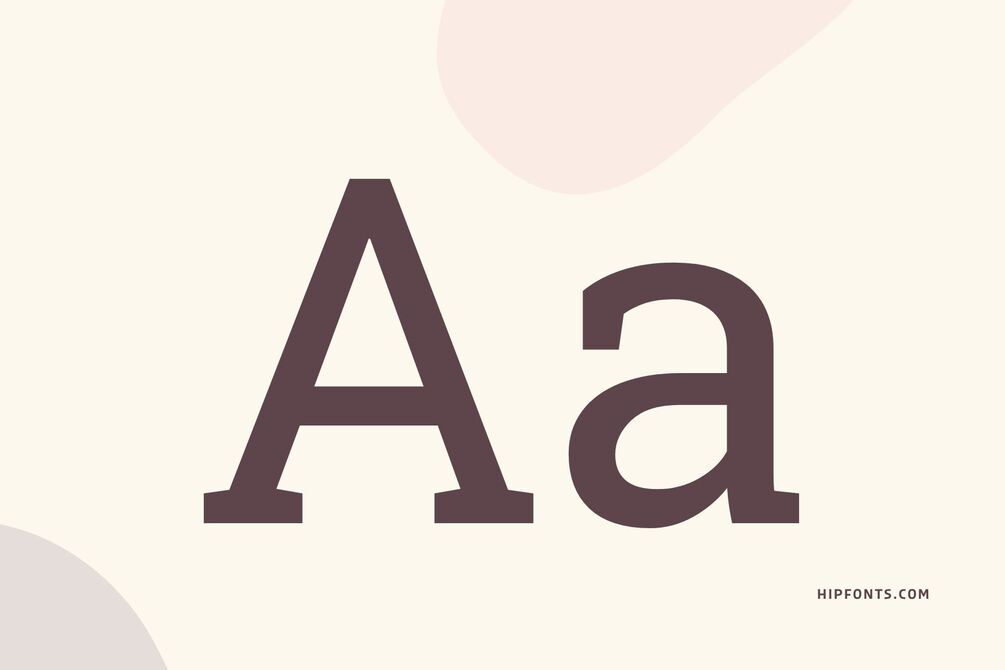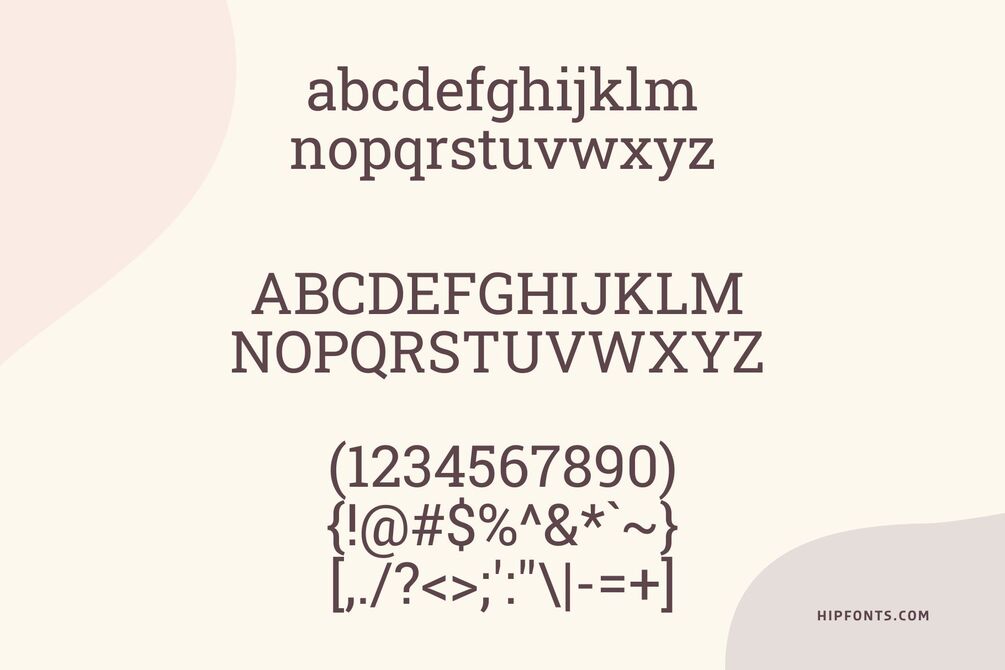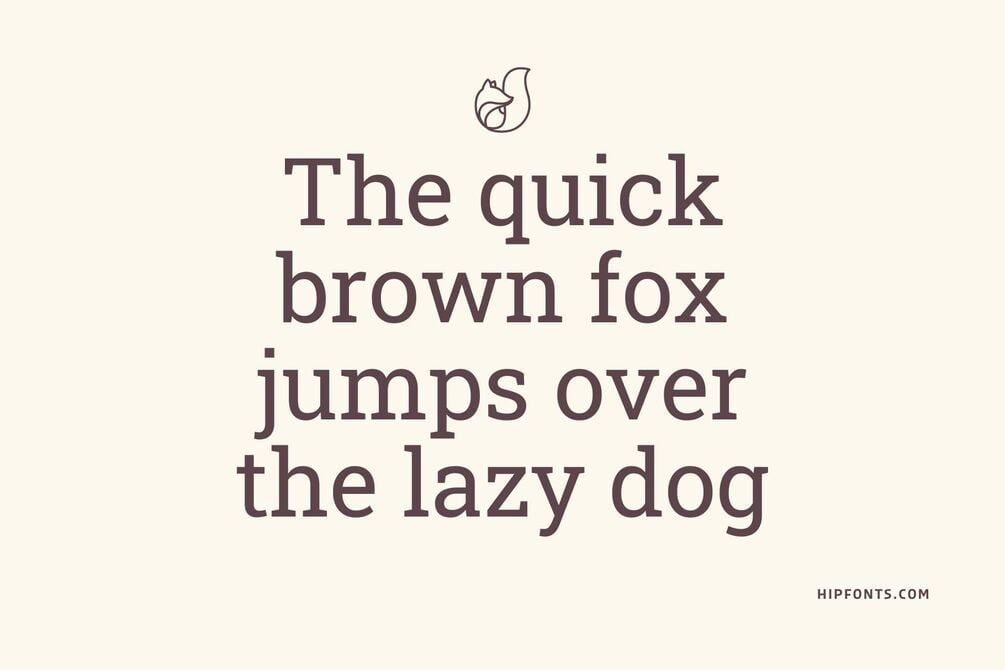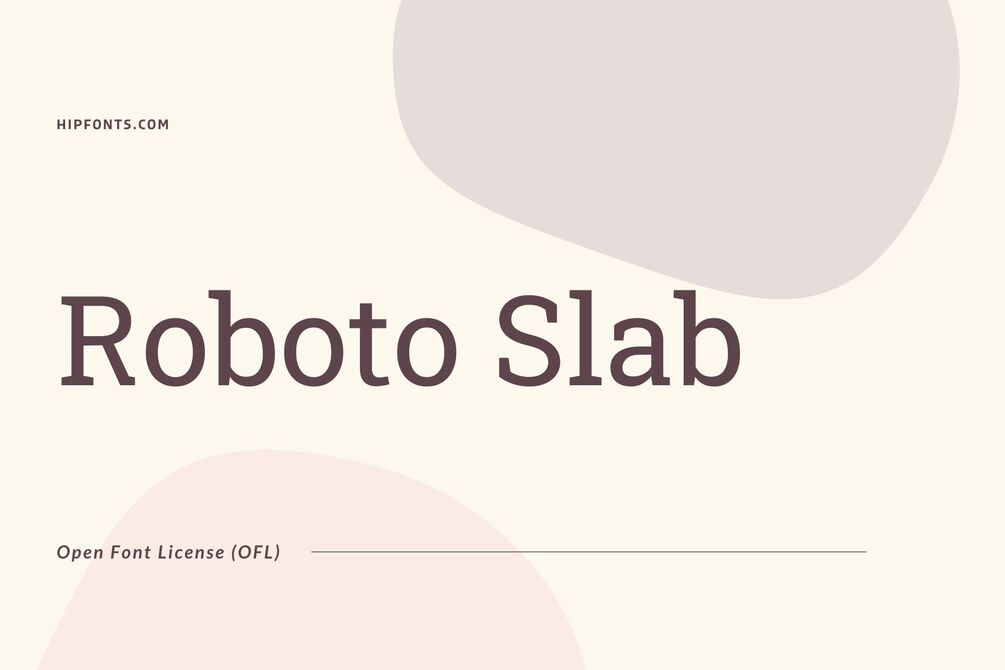
Roboto Slab
Make a bold statement with Roboto Slab (by Christian Robertson), a modern and robust serif font that commands attention. With its sturdy letterforms and distinct geometric shapes, this font exudes strength and character.
Whether you're designing a logo, a poster, or a website, Roboto Slab adds a touch of elegance and impact to your text. The subtle variations in stroke widths create a visual rhythm that draws the viewer's eye, making your message stand out.
From headlines to body text, Roboto Slab ensures readability while exuding a sense of style and professionalism. Embrace the power and versatility of Roboto Slab for your creative projects.